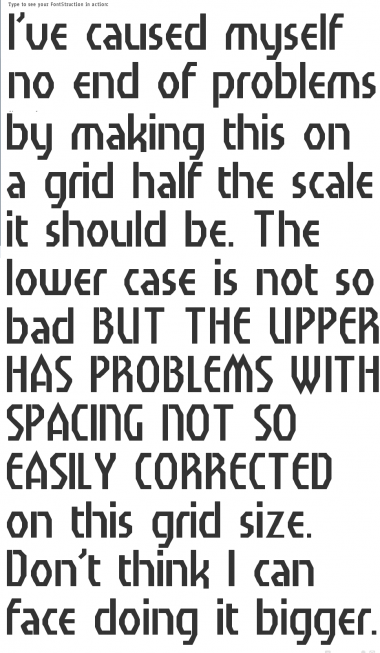
Damn! I thought four-times-upscaled from the drawing would be enough. I should have known better.
Yesterday I decided to skip this fontstruction, for I don't comment on something I don't sufficiently understand. At first sight some of these letters looked a bit awkward, especially when viewed one by one. Yet, in the text sample they worked in concert and showed beautiful rhythm and harmony. Today, I've spent some time with Mixter and here is what I've found: there is plenty of detail to love in this font. I very much like the lc a,e,k,s, and the UC B,D,E,K,R. I'm less sure about the A,M,V,W. They are fine shapes, but may not blend with the rest. One opinion is no opinion. It is better to wait what others might say about it.
It earns 10/10, nonetheless.
I like the b, g, k, and s.
Maybe the bottom curve of the S should match the top curve? So it has the symmetry of the s.
I'm obsessed with getting diagonals into my Fontstructions, hence the interesting M,W, etc... I guess I keep worrying at it because it's very hard to do convincingly!
I find the use of octagonal principles to suggest curves endlessly interesting. The trouble with it: unless you stick rigidly to 45deg angles, the results can make for a less than appealing display. Video (as opposed to print) tends to create an ugly thickening, which is also interesting.
Hey, that M is just like W when turned
Yes. The A,M,V,W started out with sharply inclined joins which looked terrific on their own but no matter how I tried to get everything else to fit, refused to blend in. No matter, I'm determined to one day use the idea. Maybe when we get another brickset that falls between the two present angles...